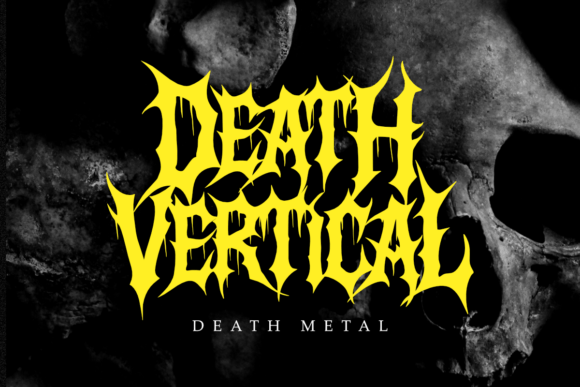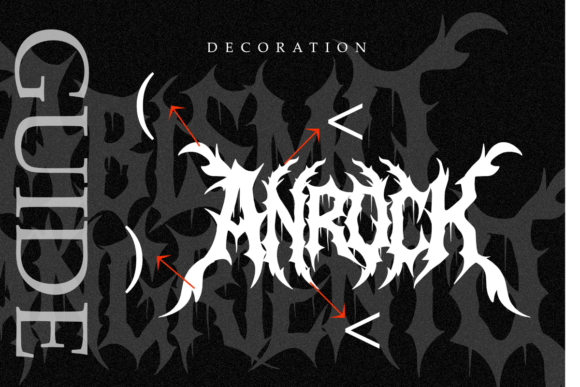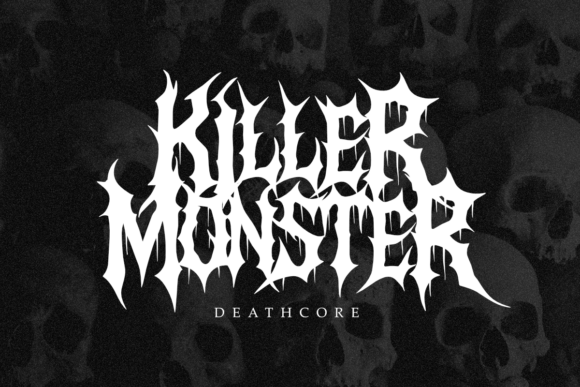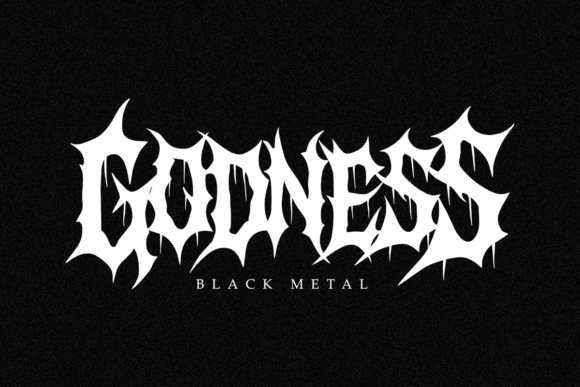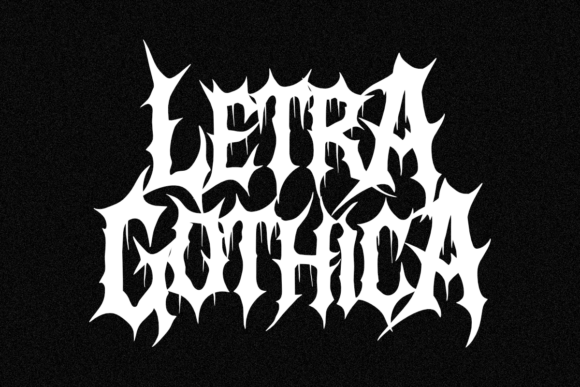
Unleash the Fury: Introducing Abismo Sangriento Font
In the realm of design, there’s a constant quest for the perfect typography to convey the essence of a project. For those who dwell in the darker corners of creativity, where extreme metal music and horror themes reign supreme, Abismo Sangriento Font is the ultimate tool to unleash your artistic fury. This brutal and highly detailed black metal font is specifically crafted for designers and crafters who crave visuals that exude raw power, aggression, and chaos.
The Inspiration Behind Abismo Sangriento
Abismo Sangriento draws its inspiration from the iconic logotypes of extreme metal bands. The font’s design is deeply rooted in the aesthetics of death metal, black metal, and other extreme music genres. The creator’s passion for the dark and aggressive vibe of these genres is evident in every sharp thorn, twisted stroke, and unholy detail that makes up this font.
Abismo Sangriento is more than just a font; it’s an experience. Its design characteristics are tailored to evoke a sense of brutality and darkness:
- Sharp Thorns and Twisted Strokes: The font features sharp, jagged edges and twisted strokes that give it an organic, hand-drawn feel. These elements contribute to its aggressive and chaotic appearance.
- Unholy Aesthetic: Every aspect of Abismo Sangriento’s design screams of darkness and malevolence. It’s as if the font itself has emerged from the depths of an abyss, bearing the scars of a thousand battles.
- Highly Detailed: The level of detail in Abismo Sangriento is exceptional. Each character is meticulously crafted to ensure that the font looks stunning in both digital and print formats.
Perfect for Extreme Designs
Abismo Sangriento is specifically designed for projects that demand an extreme, aggressive aesthetic. Here are some ideal use cases for this powerful font:
- Death Metal Logos: Create iconic logos for death metal bands that reflect their brutal sound and aesthetic.
- Underground Music Posters: Design eye-catching posters for underground music events, concerts, and festivals that exude the raw energy of the music.
- Album Covers: Give album covers a haunting, apocalyptic look that captures the essence of extreme music.
- Horror-Themed Designs: Use Abismo Sangriento to create terrifying typography for horror movies, video games, or haunted house attractions.
Beyond Music: Dark Branding and Merchandise
Abismo Sangriento’s versatility extends beyond music-related projects. It’s also perfect for:
- Dark Branding: Create a bold, unsettling brand identity that leaves a lasting impression on your audience.
- Merchandise and Apparel: Design striking merchandise, such as t-shirts, stickers, and patches, that appeal to fans of extreme music and dark aesthetics.
- Gig Posters: Produce gig posters that are both visually stunning and true to the spirit of extreme music.
Abismo Sangriento Font is a game-changer for designers and crafters who specialize in extreme, aggressive, and chaotic visuals. Its brutal design, inspired by extreme metal band logotypes, ensures that your projects will have an authentic atmosphere of raw power and darkness. Whether you’re working on death metal logos, underground music posters, album covers, or dark branding, Abismo Sangriento is the perfect tool to unleash your creativity and deliver a haunting impact.
Embrace the darkness and let Abismo Sangriento guide your design journey into the depths of extreme typography.